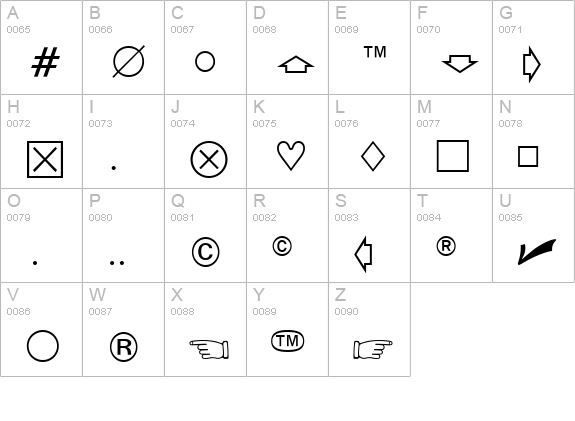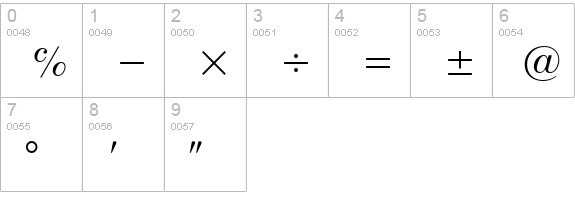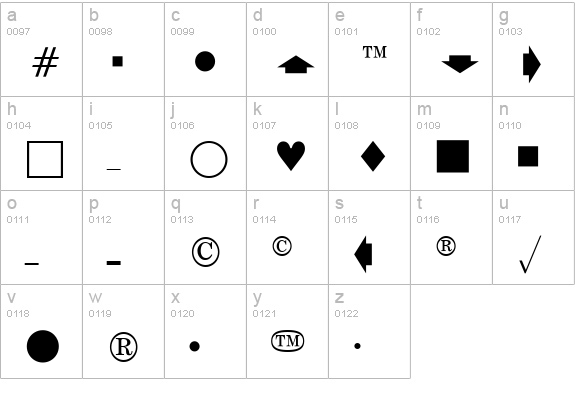
Eisago News SSi Font Details
Eisago News SSi font is a modern and versatile typeface that exudes sophistication and elegance. Its clean lines and sharp edges make it perfect for headlines, body text, and everything in between. This font offers a unique blend of classic and contemporary design elements, making it suitable for a wide range of projects. What's even better is that Eisago News SSi font is available for free download at FontsMarket.com. This means you can easily access this high-quality font without breaking the bank. Whether you're a designer, writer, or anyone in need of a stylish and professional font, Eisago News SSi is sure to elevate your work to the next level. Download it today and see for yourself the impact this font can have on your projects.